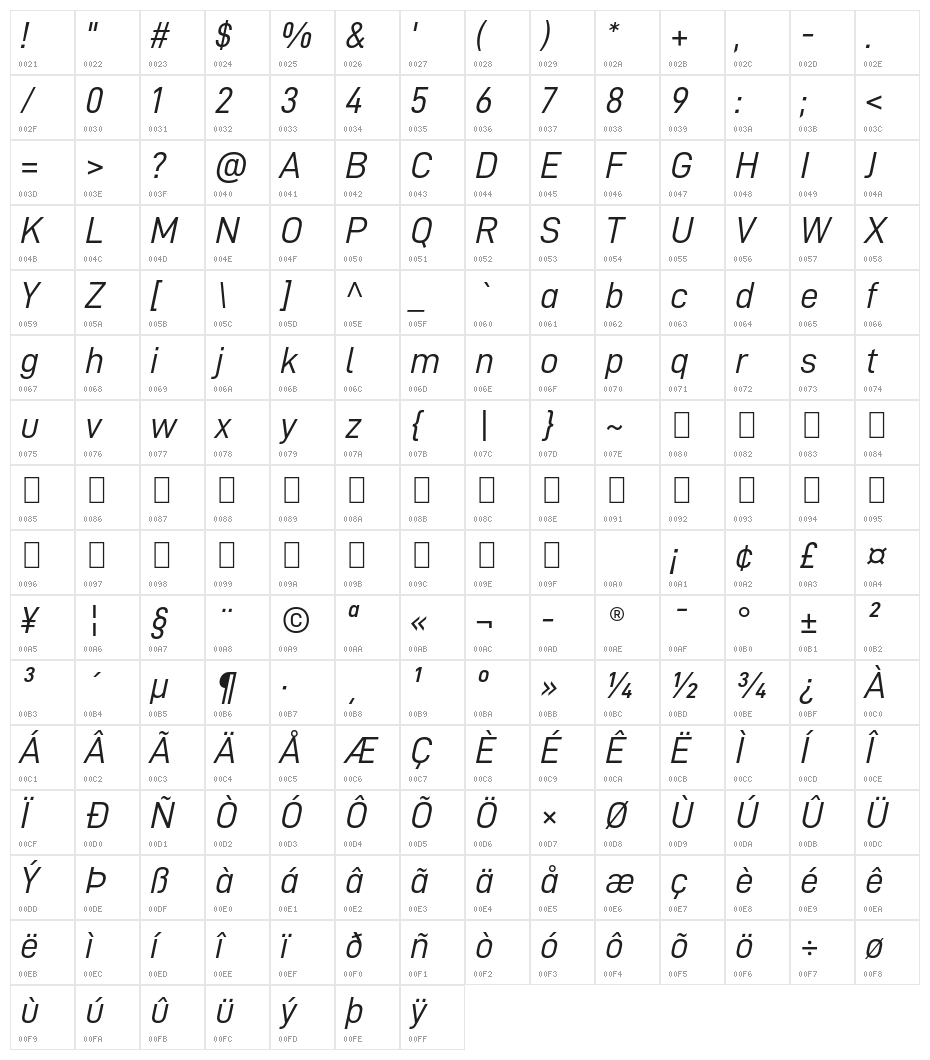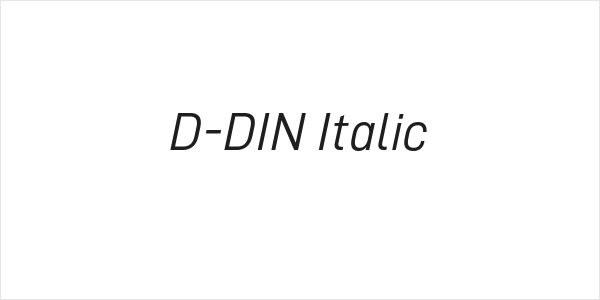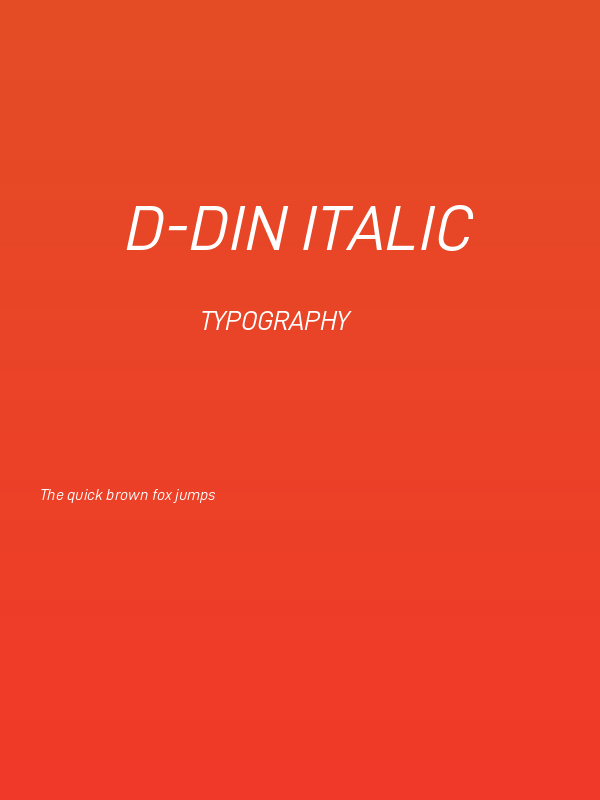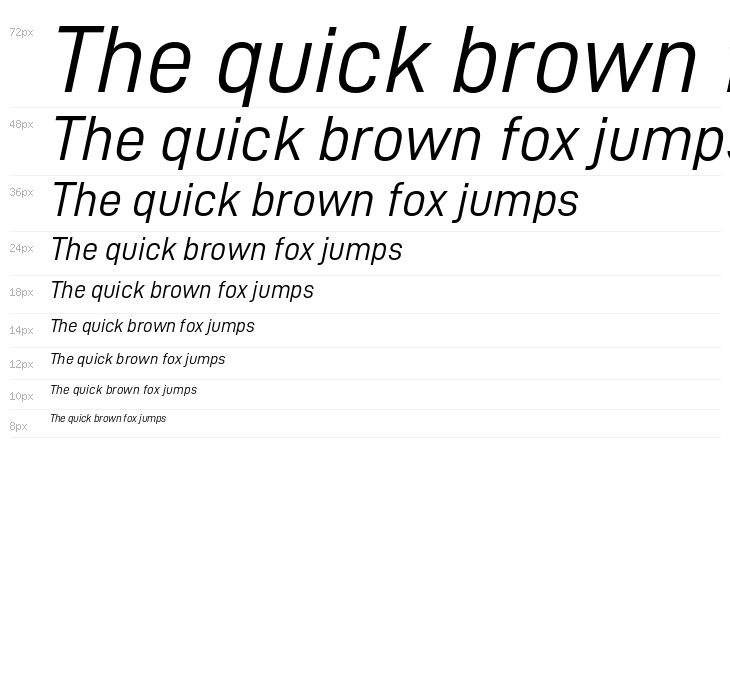
D-DIN Italic Font
D-DIN Italic Description
This font features a clean, modern design with a slight italic slant, giving it a dynamic and forward-moving appearance. The characters are uniform and geometric, with consistent stroke widths that provide a balanced and professional look. The uppercase letters are tall and commanding, while the lowercase letters maintain a harmonious flow. The numerals are clear and easily distinguishable, making them suitable for various applications. Special characters are well-integrated, maintaining the overall aesthetic of the typeface. This font is versatile, suitable for both digital and print media.
| Proposed Projects | Ideal for corporate branding, editorial design, web interfaces, and signage. |